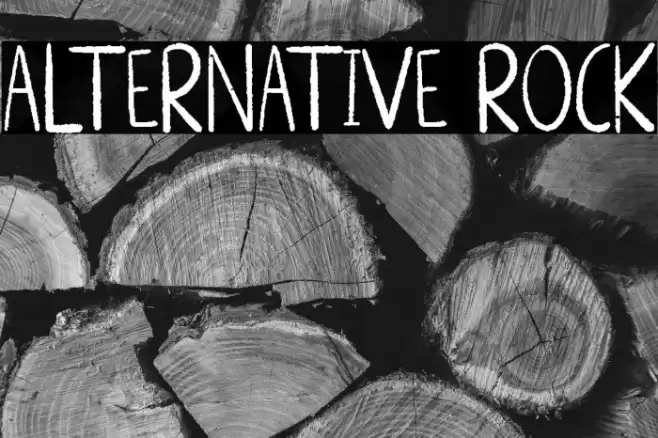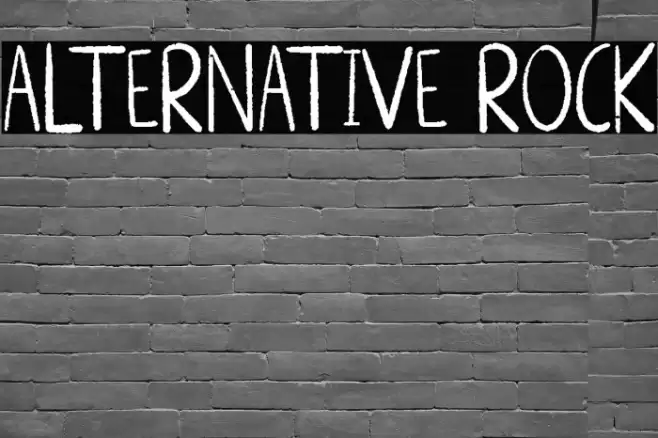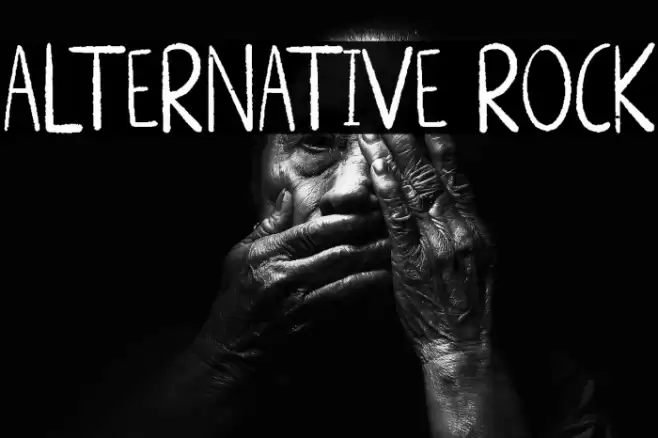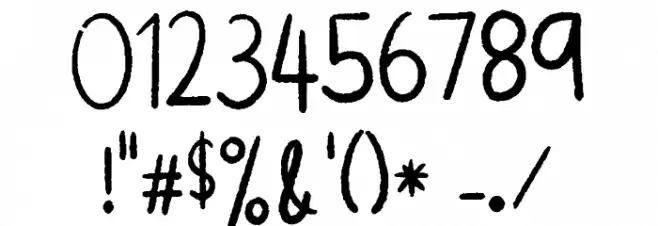
ALTERNATIVE ROCK Font
ALTERNATIVE ROCK Description
This font features a hand-drawn, organic style with a playful and casual appearance. The characters are slightly irregular, giving it a unique and artistic feel. The strokes are uneven, adding to its charm and making it ideal for creative projects. The uppercase and lowercase letters maintain a consistent style, while the numbers and special characters complement the overall design. This font exudes a sense of individuality and creativity, perfect for projects that require a personal touch.
A hand-drawn, playful font with an artistic and casual style from Decorative fonts.
- Proposed Projects: Ideal for posters, album covers, greeting cards, and artistic branding projects.
- Overall Style: Artistic
- Use Case: Headlines, Creative projects, Artistic branding